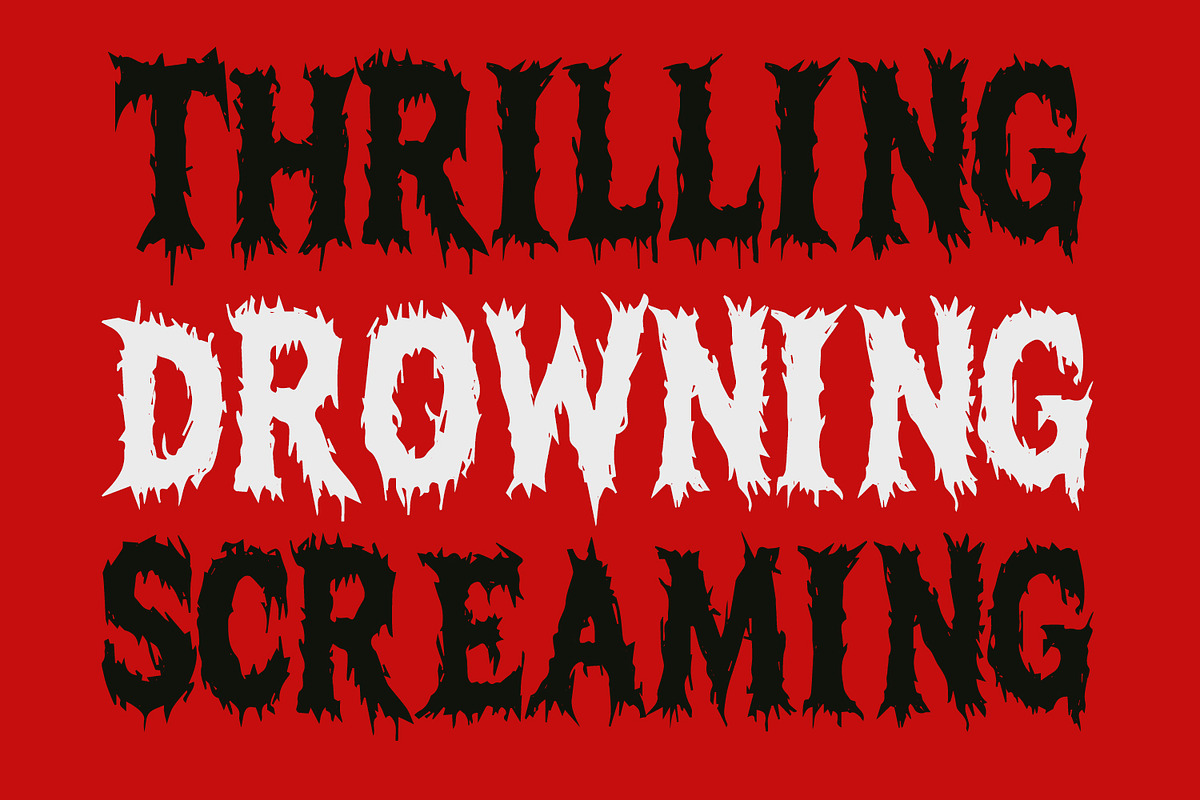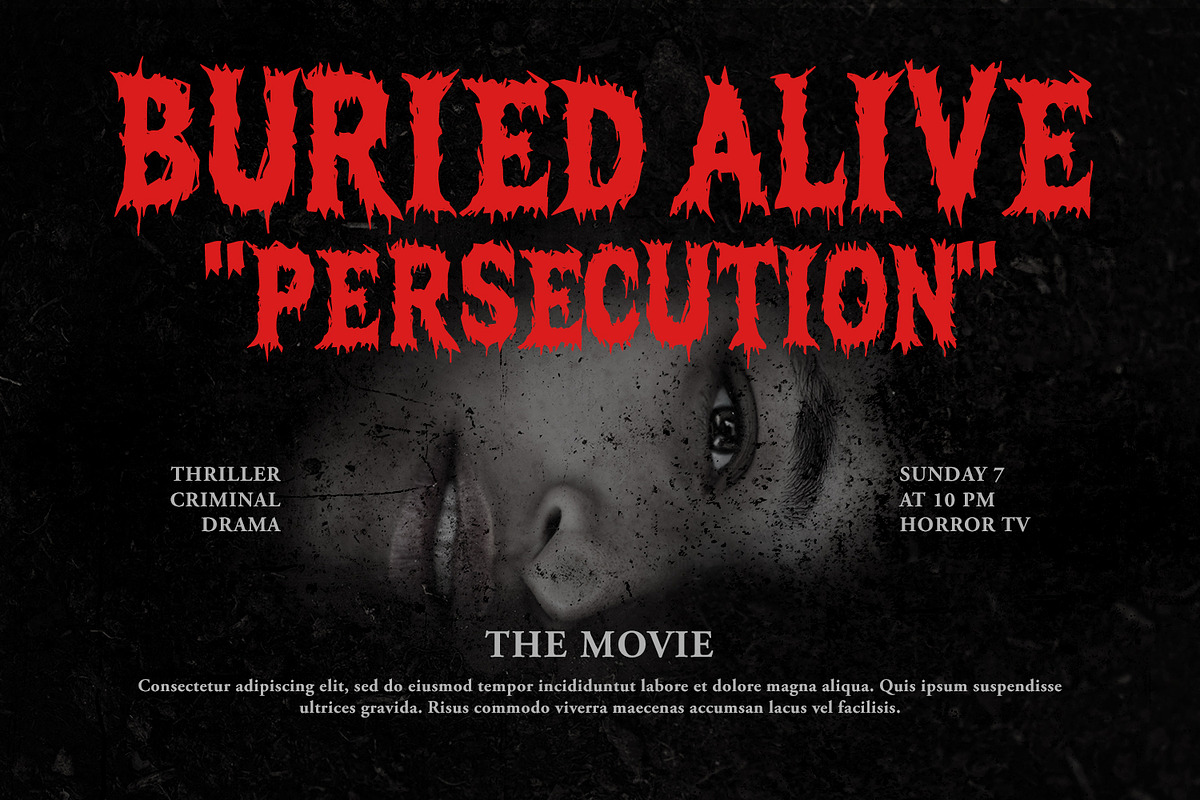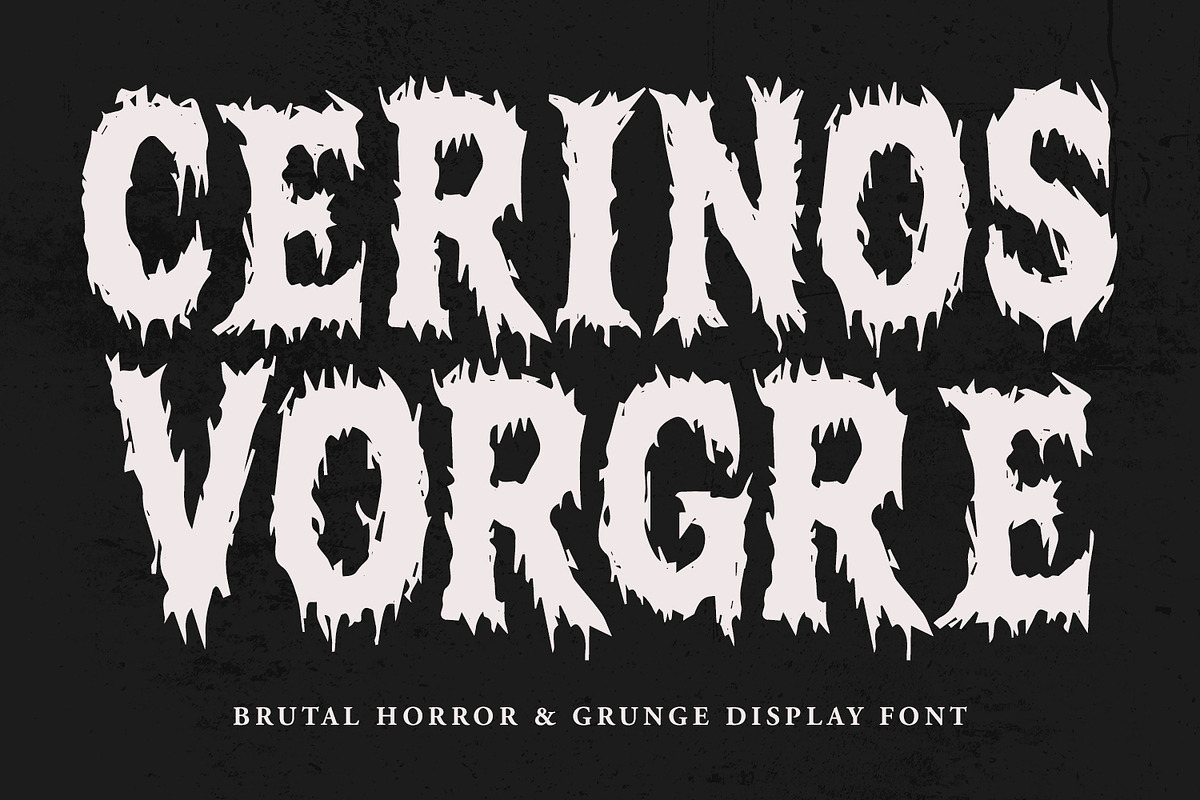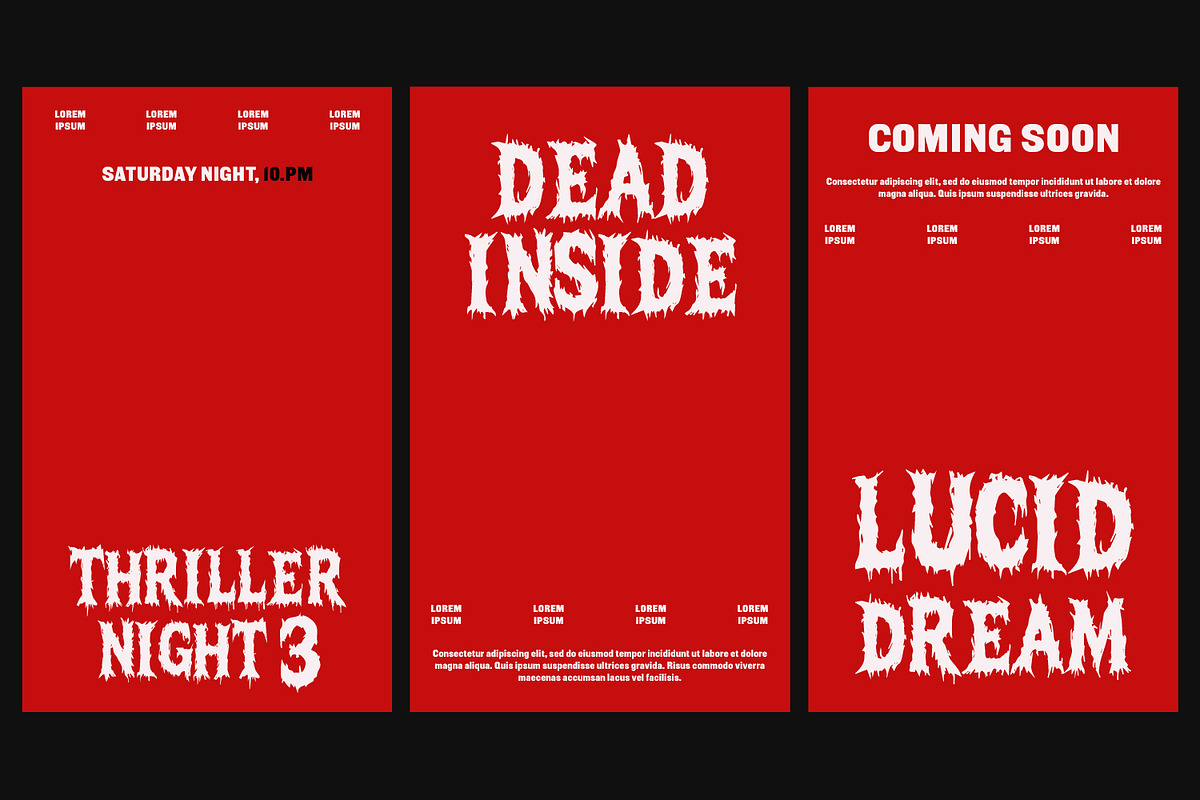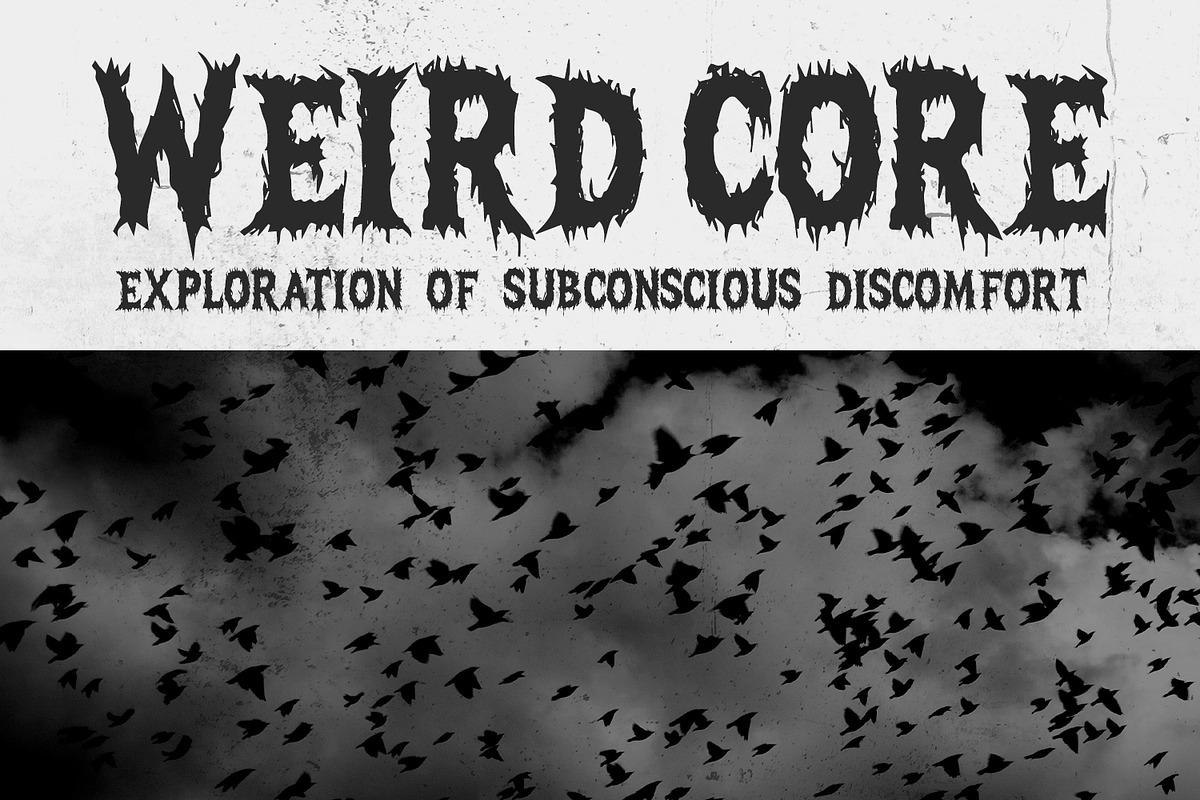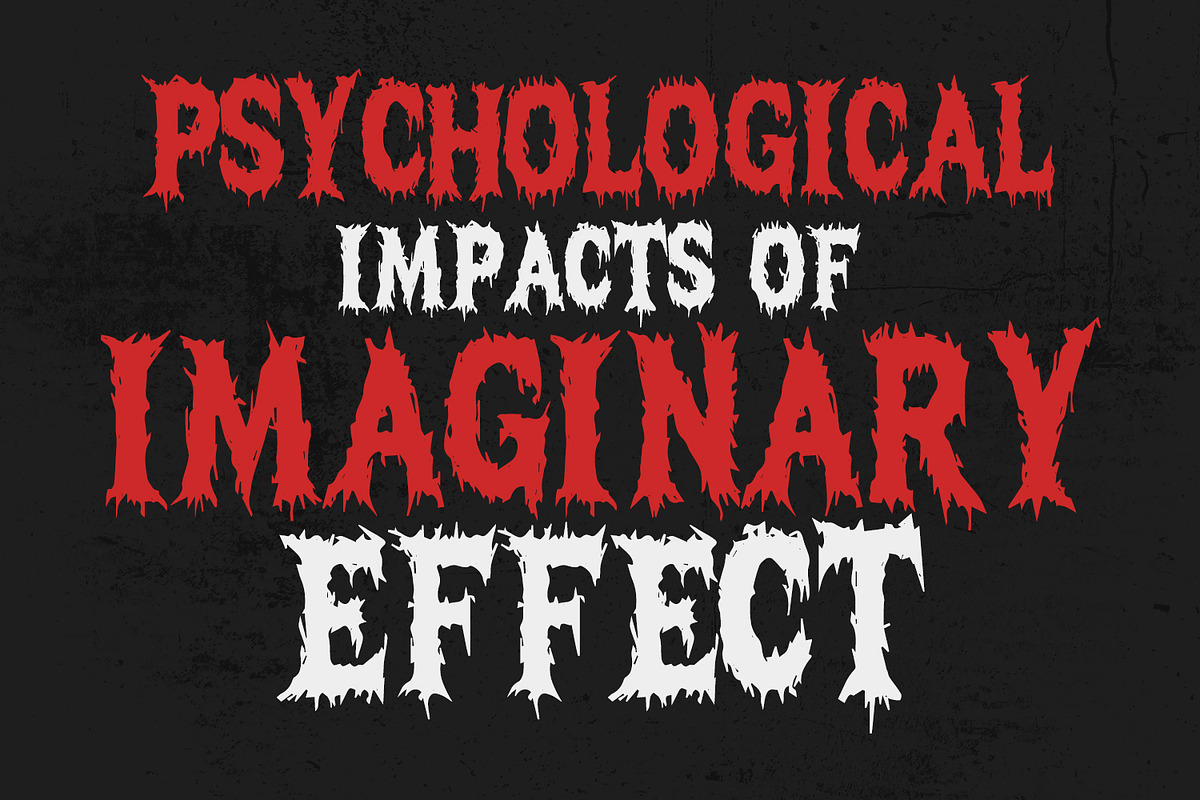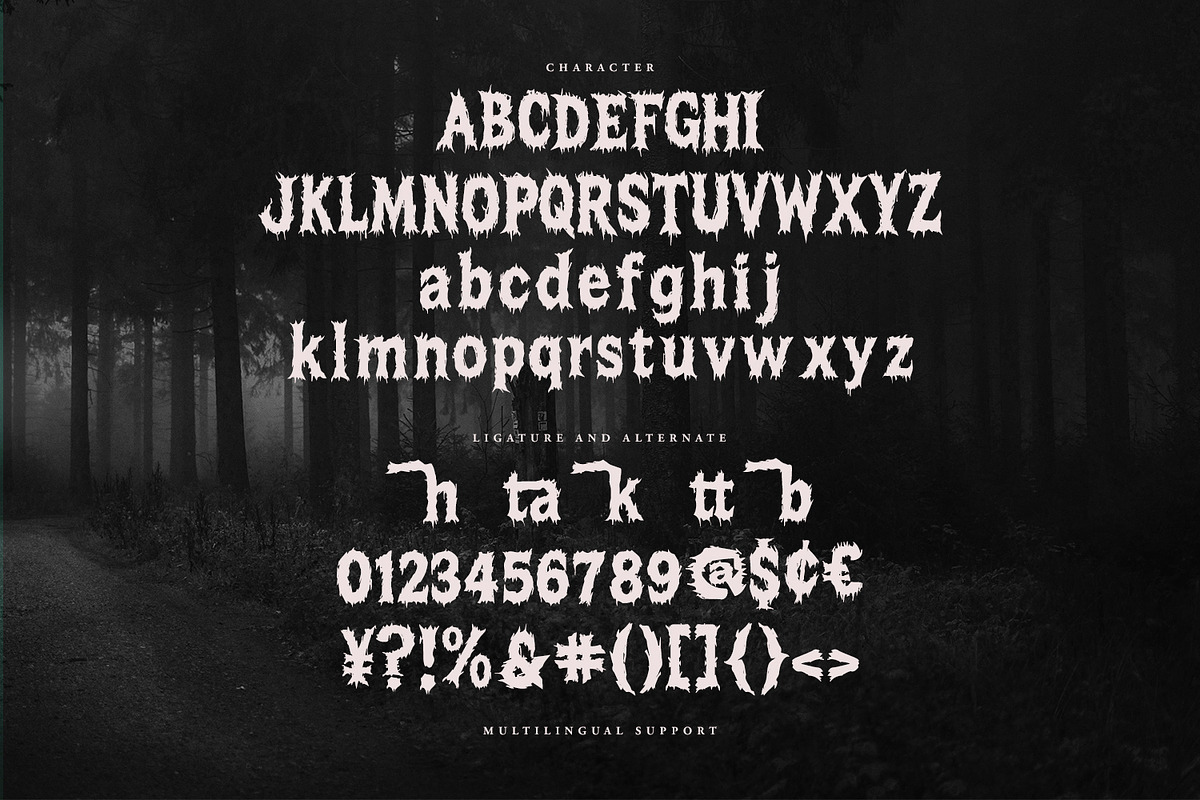
Cerinos Vorgre Brutal Horror Grunge
Cerinos Vorgre is a raw, aggressive display font designed to evoke terror and suspense. Featuring sharp, jagged edges and a distressed, hand-drawn aesthetic, this typeface captures the essence of classic slasher films and underground metal aesthetics. It is the perfect choice for horror movie titles, heavy metal album covers, spooky Halloween branding, and any project that requires a dark, menacing presence.
- Full character set
- Numbers, Punctuation, and Symbols
- Ligatures for a natural flow